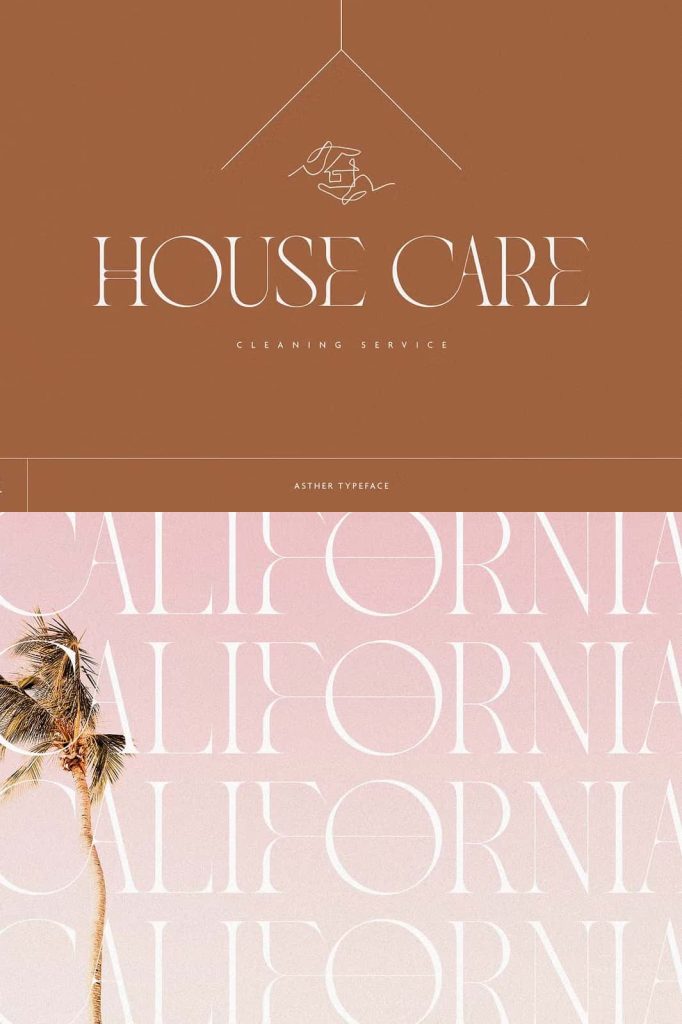
Asther Modern Serif Font
Asther is a refined modern serif font that embodies elegance, sophistication, and contemporary style. Inspired by the luxurious typography found in high-end fashion magazines, Asther combines minimalist design principles with expressive serif details to create a timeless typeface that feels both fashionable and professional. Every character has been thoughtfully designed to deliver exceptional visual impact while maintaining excellent readability, making it a versatile choice for designers working on premium branding and editorial projects.
Featuring beautifully balanced thick and thin strokes, Asther captures the essence of modern luxury. Its elegant proportions, clean letterforms, and sophisticated contrast allow every word to communicate confidence, creativity, and style. Whether you’re creating a memorable logo, designing a fashion campaign, or producing an editorial magazine layout, Asther helps elevate your typography with effortless refinement.
Designed for today’s creative professionals, Asther blends classic serif traditions with contemporary aesthetics, making it suitable for both print and digital applications across a wide variety of industries.
Inspired by High-End Fashion Typography
Asther takes inspiration from the elegant typography often featured in luxury fashion magazines and premium editorial publications. The font reflects the sophistication of modern fashion by combining graceful serif details with a clean and minimalist overall structure.
This inspiration results in a typeface that feels stylish without becoming overly decorative. Every character has been carefully refined to create harmonious spacing, balanced proportions, and a luxurious appearance that naturally attracts attention.
Whether used for magazine covers, fashion campaigns, or boutique branding, Asther brings an unmistakable editorial quality to every design.
Elegant Thick and Thin Stroke Contrast
One of Asther’s most recognizable features is its beautiful contrast between thick and thin strokes. This classic typographic characteristic creates visual rhythm while emphasizing the elegance of each letter.
The carefully controlled stroke variation enhances readability and gives headlines, logos, and titles a premium appearance. This contrast also helps create sophisticated typography that feels graceful, modern, and highly memorable.
The result is a serif font that performs exceptionally well in display settings while remaining refined enough for supporting text in editorial layouts.
Minimalist Design with Maximum Impact
Asther embraces a minimalist philosophy that allows every letterform to stand on its own. Rather than relying on excessive ornamentation, the font uses clean lines, elegant proportions, and subtle serif details to establish a distinctive personality.
This minimalist approach makes Asther highly versatile across different design styles. It pairs effortlessly with modern sans serif fonts, luxury photography, simple layouts, and sophisticated color palettes.
The clean structure also helps designers maintain a polished and professional appearance across branding systems and marketing materials.
Perfect for Luxury Branding
Asther has been developed for brands that want to communicate elegance, exclusivity, and confidence. Its premium aesthetic makes it suitable for businesses operating in fashion, beauty, hospitality, publishing, and luxury retail.
Asther works beautifully for:
- Luxury logos
- Fashion branding
- Beauty product packaging
- Cosmetic labels
- Jewelry branding
- Perfume packaging
- Boutique identities
- Lifestyle brands
- Creative agencies
- Personal branding
The sophisticated design helps businesses establish a memorable identity while reinforcing a premium brand image.
Designed for Editorial Excellence
Editorial design requires typography that combines beauty with functionality, and Asther delivers both. Its refined letterforms create striking headlines while maintaining readability across magazines, catalogs, brochures, and digital publications.
The font pairs perfectly with minimalist layouts and large photography, allowing designers to create sophisticated editorial compositions that feel balanced and visually engaging.
Magazine covers, feature articles, lookbooks, and promotional publications all benefit from Asther’s timeless elegance.
Versatile Across Creative Projects
Although inspired by the fashion industry, Asther adapts beautifully to a wide variety of creative applications. Its versatility allows designers to use it confidently across branding, packaging, digital media, and printed materials.
Ideal uses include:
- Business logos
- Brand identities
- Website headers
- Product packaging
- Wedding invitations
- Editorial layouts
- Magazine covers
- Book covers
- Advertising campaigns
- Presentation designs
- Luxury stationery
- Business cards
If you’re searching for a serif font that captures the elegance of luxury magazines while offering exceptional versatility, Asther is a valuable addition to your font collection. Its timeless design helps transform creative concepts into polished visual experiences that leave a lasting impression across both print and digital media.